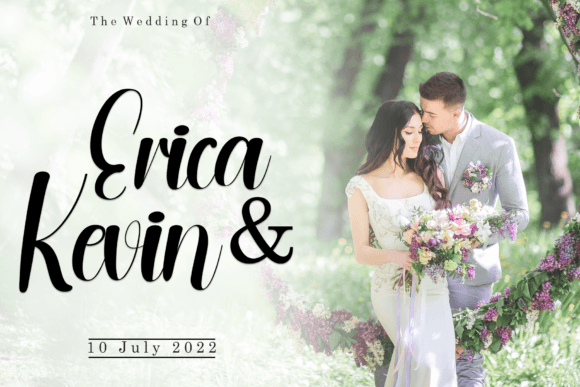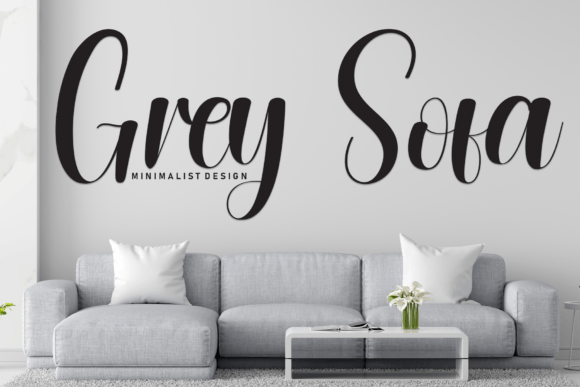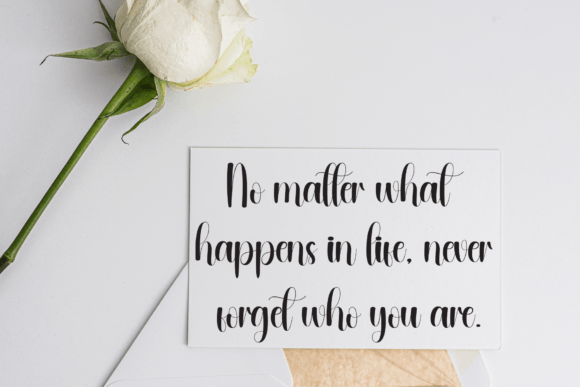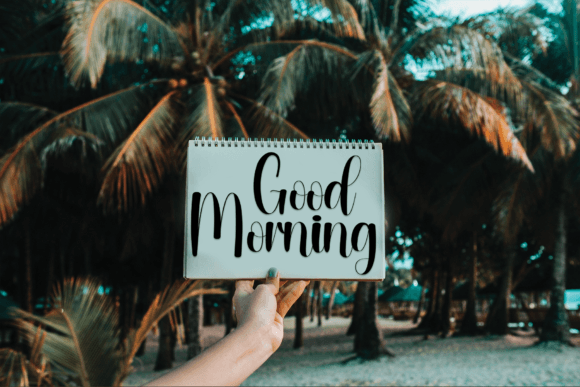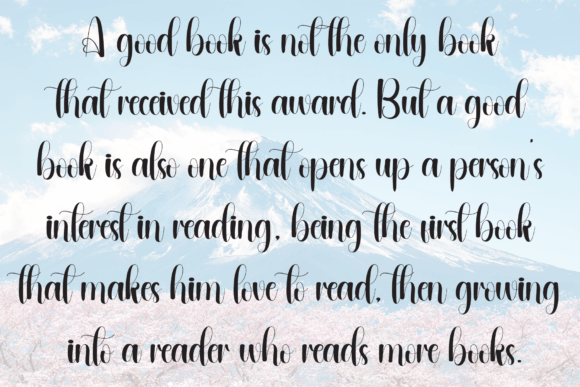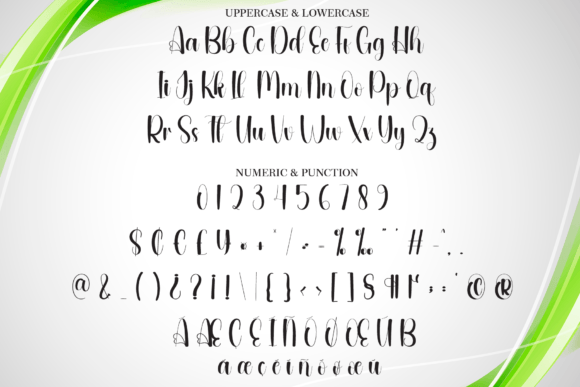
The Sweet Charm of Gratitude Font: A Designer’s Delight
I’ll never forget the time I was working on a wedding invitation project, and my client asked for a font that was “fun, yet elegant.” I scoured the internet, tried out dozens of fonts, but nothing seemed quite right. That was until I stumbled upon the Gratitude Font. This sweet and friendly handwritten display font instantly won me over with its cute and fun vibe. In this article, I’ll share my experience with Gratitude Font, its features, and how to make the most of it in your designs.
- ✨ The font’s playful and whimsical feel makes it perfect for wedding invitations, cards, and other designs that need a touch of personality.
- ✅ It’s incredibly versatile and works well in both digital and print formats.
- 💕 The font’s friendly and approachable tone makes it ideal for designs that require a human touch.
While Gratitude Font is an excellent choice for many projects, there are a few things to keep in mind:
- 🤔 The font can be a bit overwhelming when used in large blocks of text. It’s best suited for headings, titles, and short paragraphs.
- ⚠️ Some of the font’s characters, such as the lowercase “g” and “y,” have a slightly different design than their uppercase counterparts. This can take some getting used to, but it’s not a deal-breaker.
The Designer Inspiration Behind Gratitude Font
Gratitude Font was designed with the intention of creating a font that would bring a sense of joy and gratitude to designs. The font’s creator wanted to craft a font that was both elegant and playful, making it perfect for wedding invitations, cards, and other designs that require a personal touch.
Q: Is Gratitude Font suitable for body text?
A: While Gratitude Font is a beautiful font, it’s best suited for headings, titles, and short paragraphs. For body text, a clearer font might be more suitable.